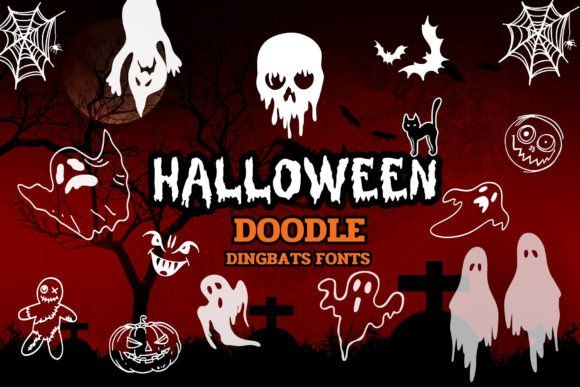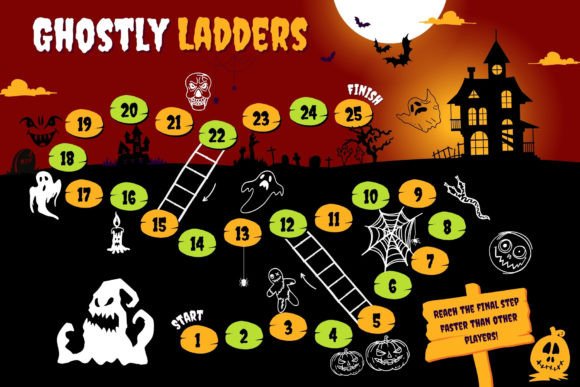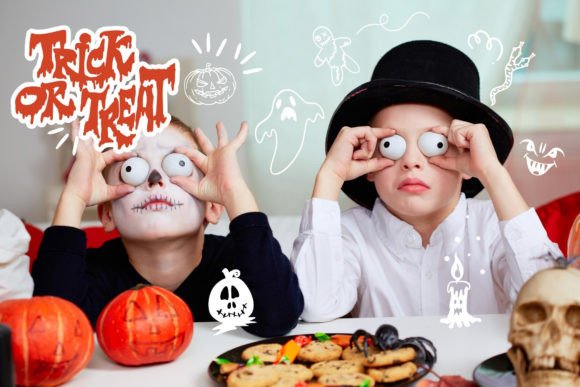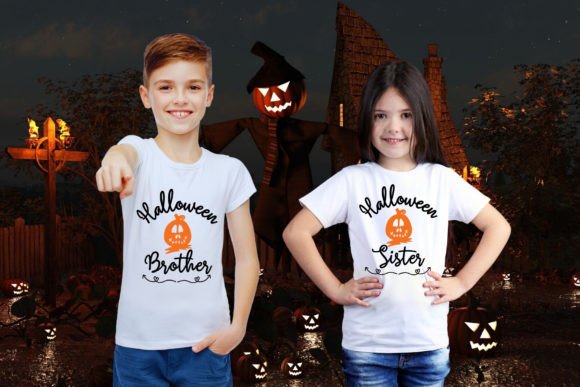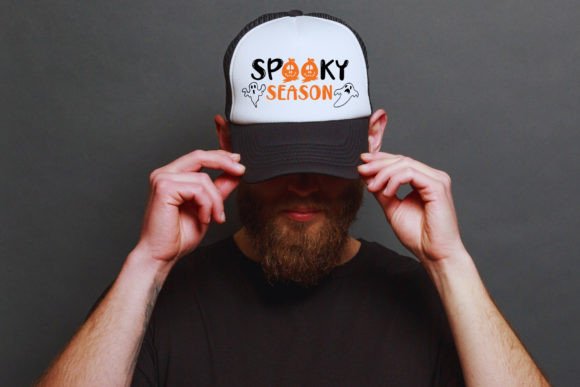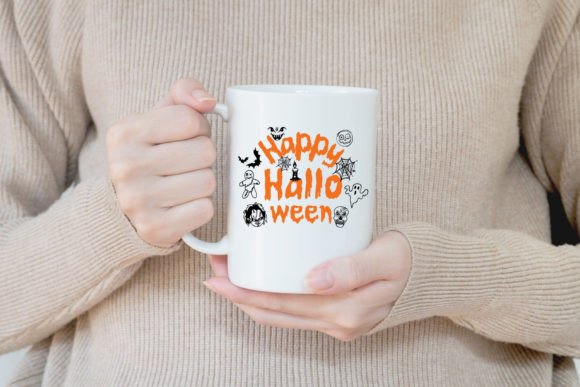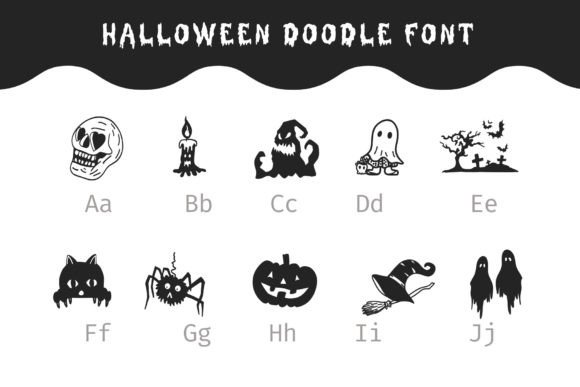
Halloween Doodle Font: Unleash Your Inner Designer This Halloween Season
It’s that time of the year again – the leaves are changing colors, the air is filled with the sweet scent of pumpkin spice, and the creative juices are flowing like never before. As a designer, you’re probably itching to create something spooky yet fun for your Halloween projects. You start brainstorming ideas, but something’s missing – a touch of whimsy, a dash of magic, and a pinch of Halloween charm.
Enter the Halloween Doodle Font, a treasure trove of spooky and fun Halloween-themed symbols and icons. This versatile font is designed to help you add a festive touch to your party invitations, decorations, and greeting cards. With its collection of bats, witches’ hats, pumpkins, and ghosts, you’ll have everything you need to make your projects bewitchingly festive. Whether you’re a seasoned designer or a Halloween enthusiast, the Halloween Doodle Font is the perfect companion for your spooky creations.
Halloween Doodle Font Key Features
- Unique Whimsical Design: The font features a playful, hand-drawn design with a Halloween twist, making it perfect for adding a spooky touch to your designs.
- Characters and Glyphs: The font includes a range of characters, including uppercase and lowercase letters, numbers, and special symbols, making it suitable for various design applications.
Halloween Doodle Font Review
Overall, I think the Halloween Doodle Font is a cute and playful addition to any design project, especially those with a spooky or festive theme ✨. The font’s doodle-like quality gives it a fun, hand-drawn feel that’s sure to stand out.
- Unique and whimsical design
- Works well for titles, headings, and short blocks of text
- Comes with a variety of weights and styles to choose from
However, I do have a few concerns about the font’s limitations ⚠️:
- May be difficult to read in larger blocks of text due to its doodle-like quality
- Some characters may not be entirely legible, particularly the letters “a” and “g”
- Not suitable for professional or formal designs, as it may come across as too playful or childish
Overall, I would recommend the Halloween Doodle Font for designers who want to add a fun and playful touch to their designs. Just be mindful of its limitations and use it in moderation.
The Halloween Doodle Font is perfect for creating spooky invitations, party decorations, and social media graphics. You can also use it to create Halloween-themed merchandise, such as t-shirts and mugs. Experiment with different doodle combinations and layering techniques to create unique and eye-catching designs.